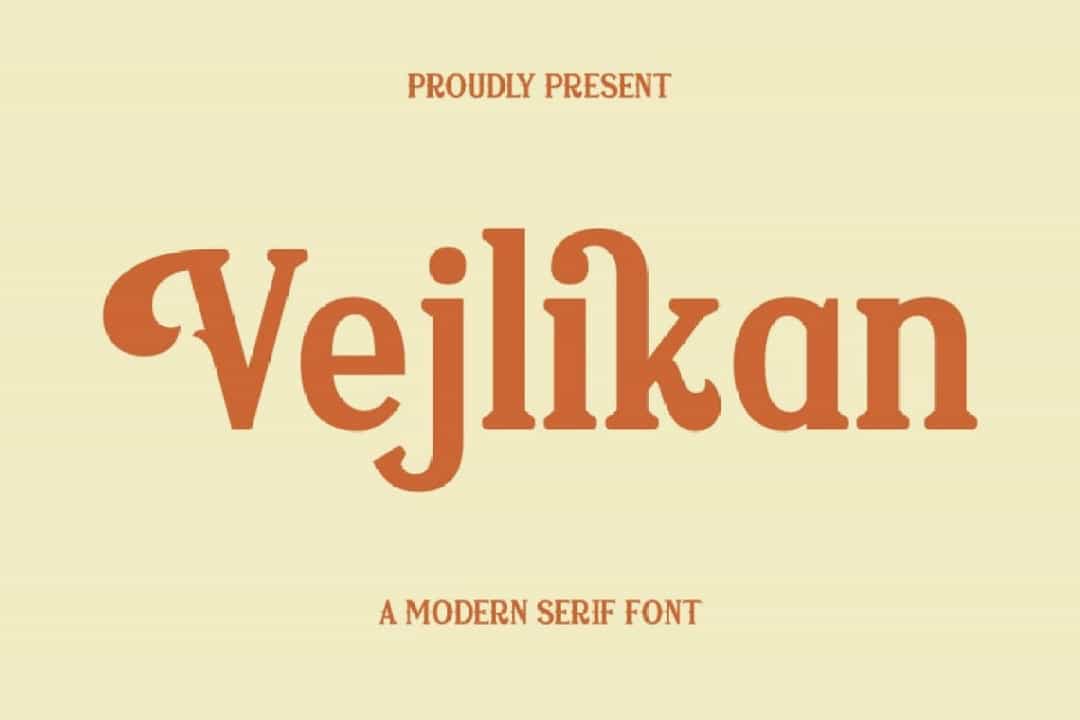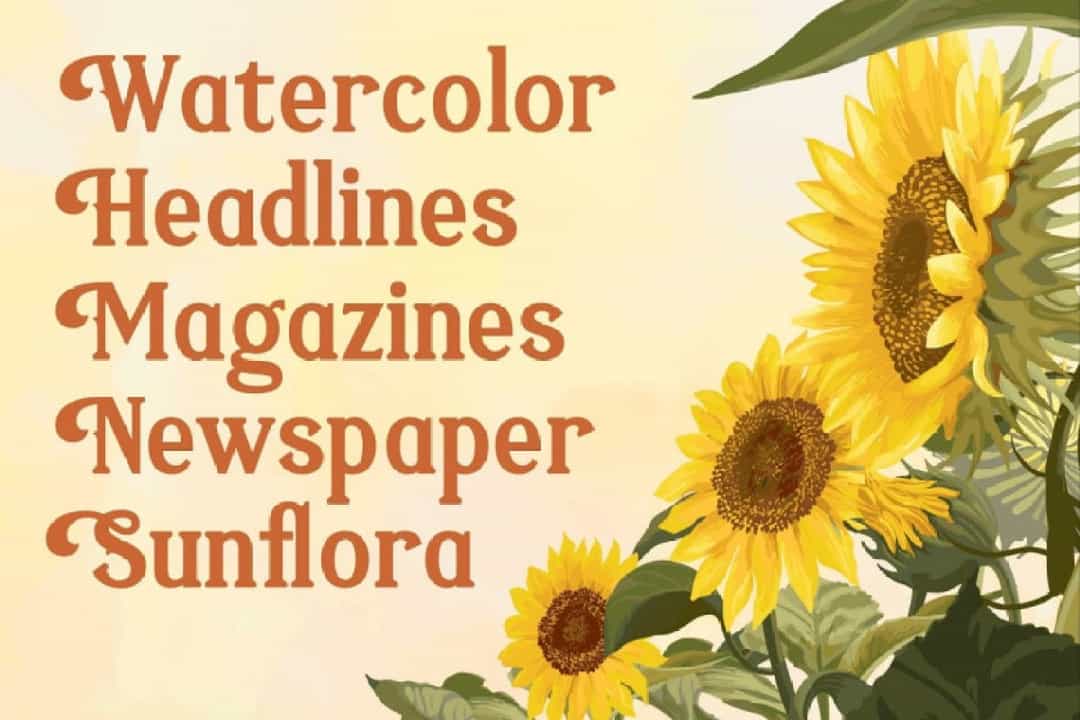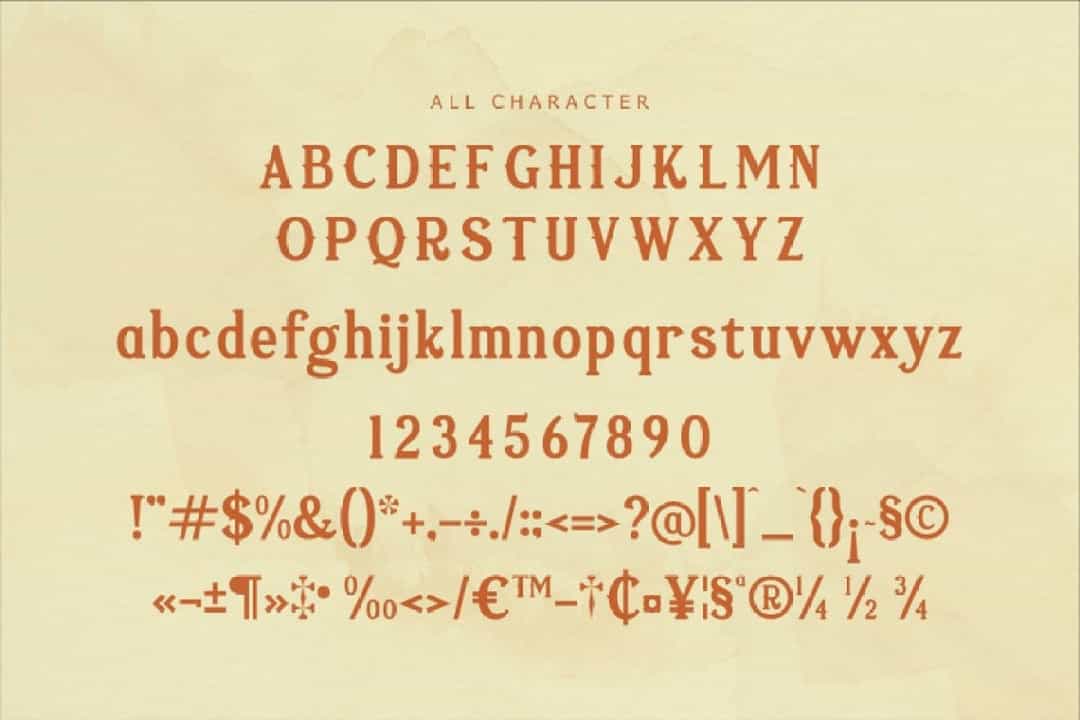
Vejlikan is an elegant and contemporary serif typeface with a distinct appearance, ideal for creating sophisticated logos, fashion brand clothing logos, magazine letters, quotes and many other applications.